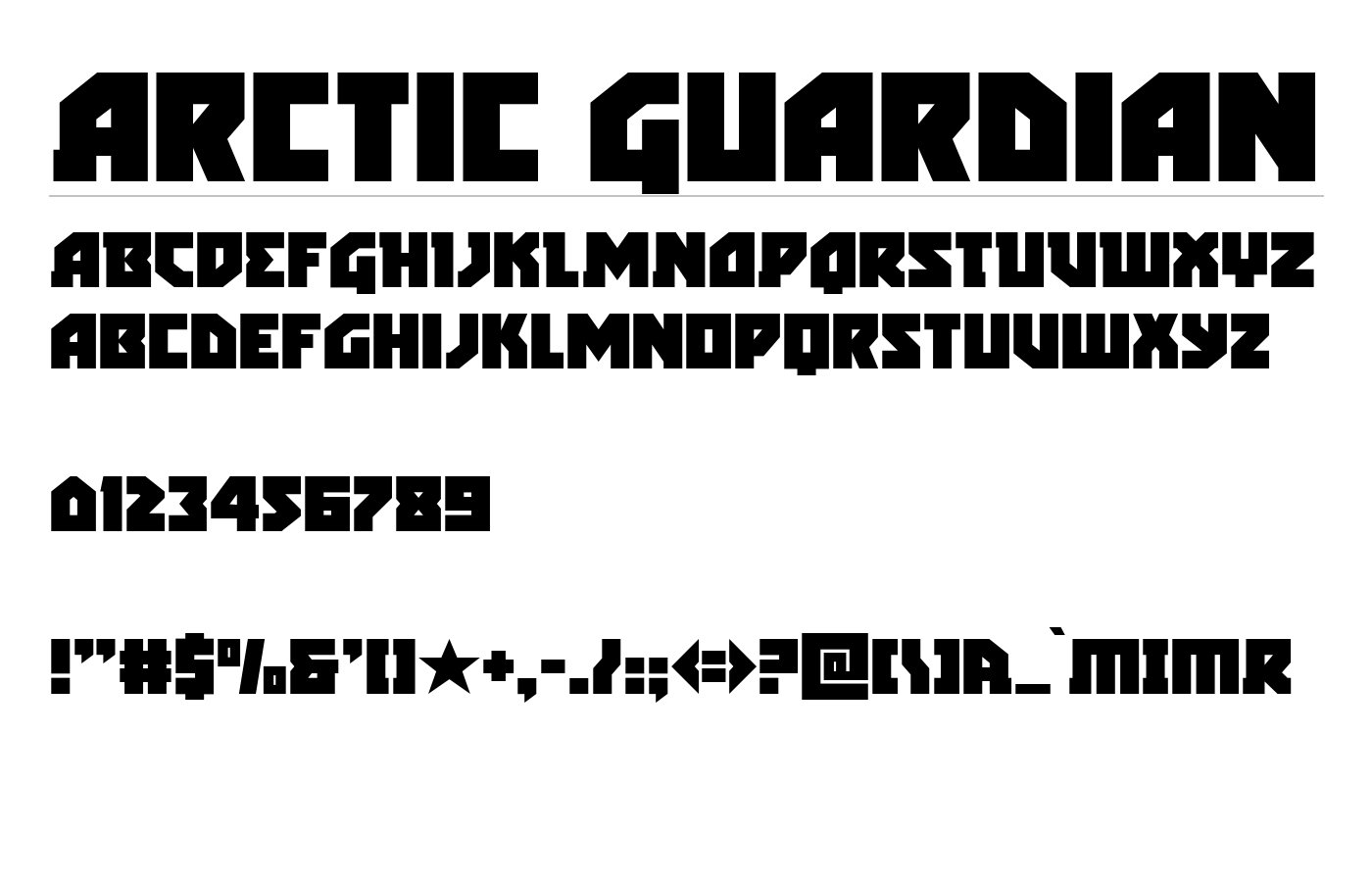
Arctic Guardian is a bold, geometric sans serif font with a strong, blocky presence and sharp edges that convey power and modernity. Its high weight and tight spacing make it ideal for impactful headlines, branding, and designs that need a confident, futuristic vibe. This font works well in logos, posters, and packaging where a striking and sturdy look is desired.
Arctic Guardian Font